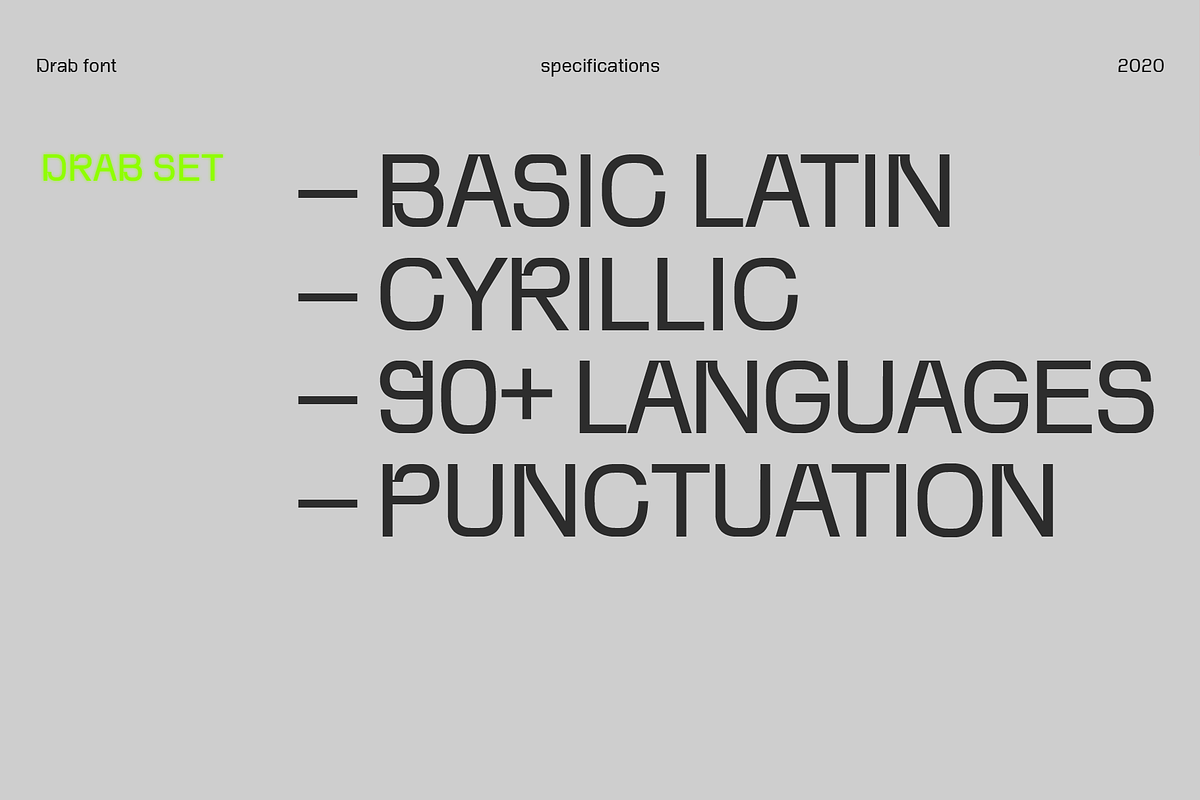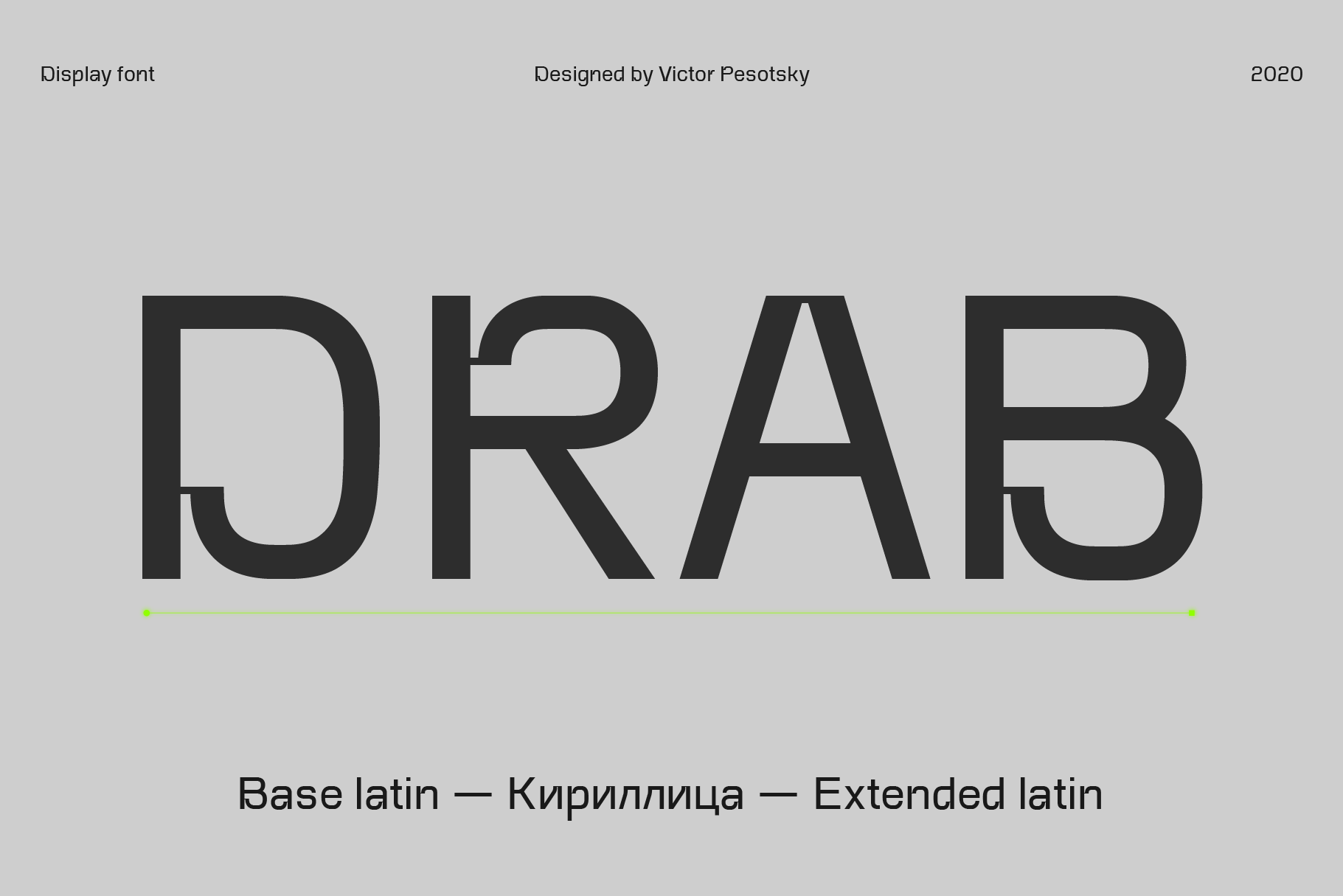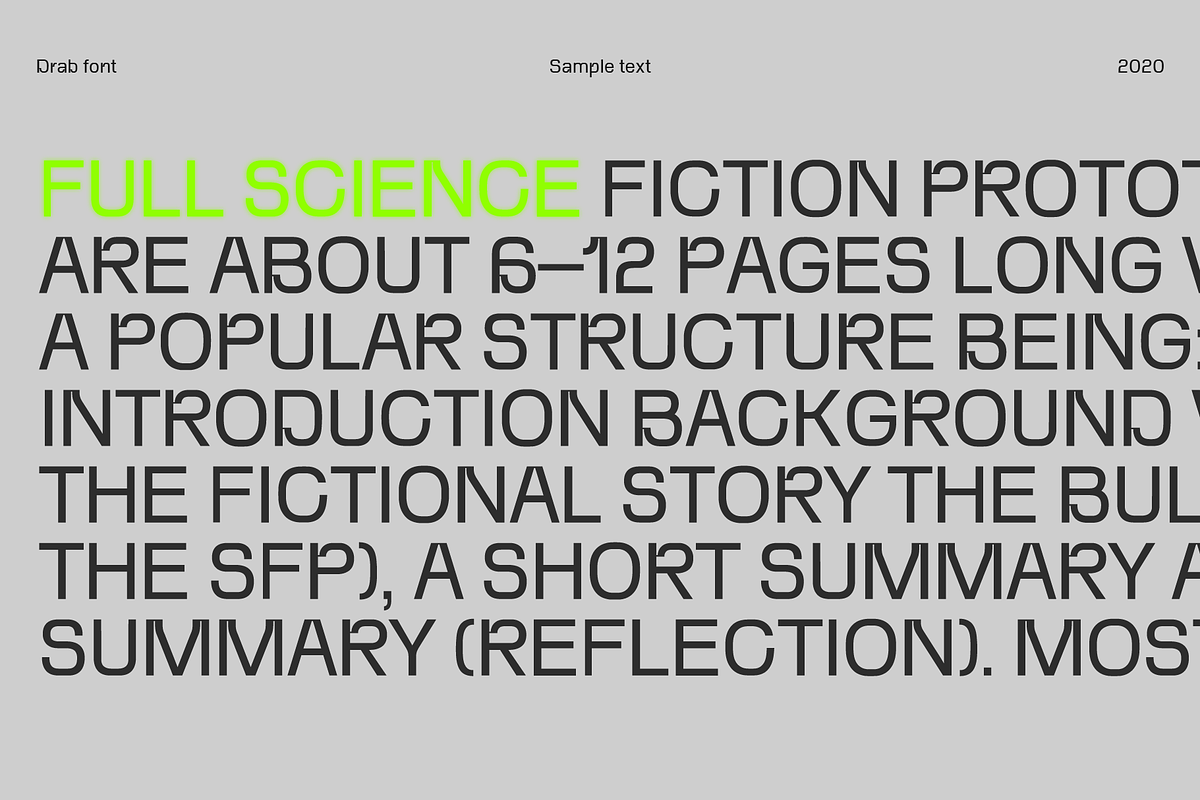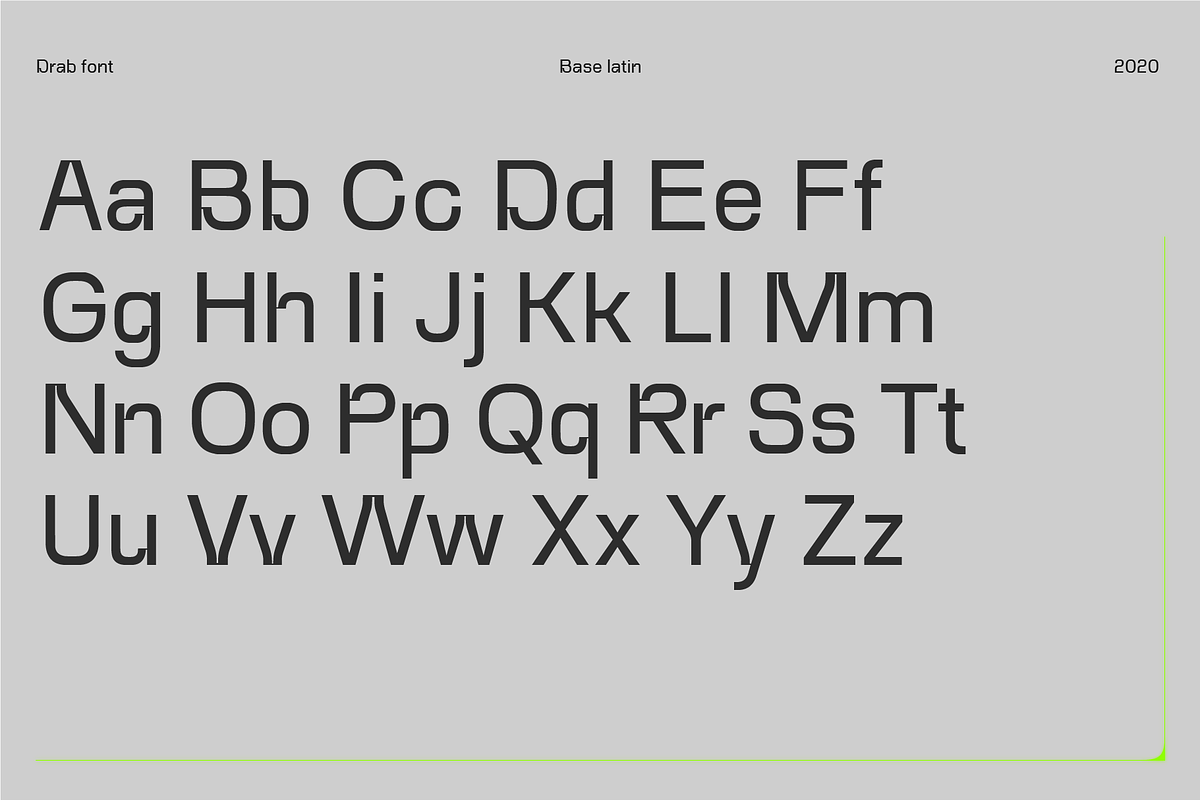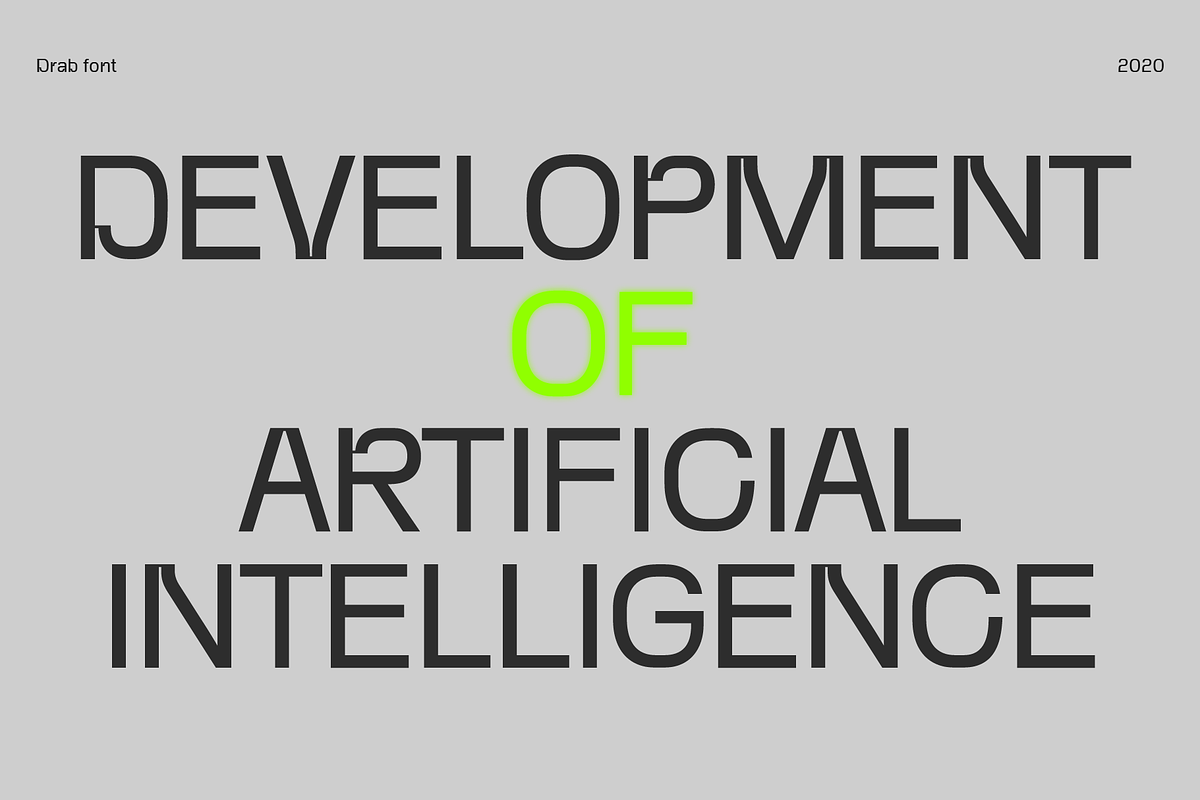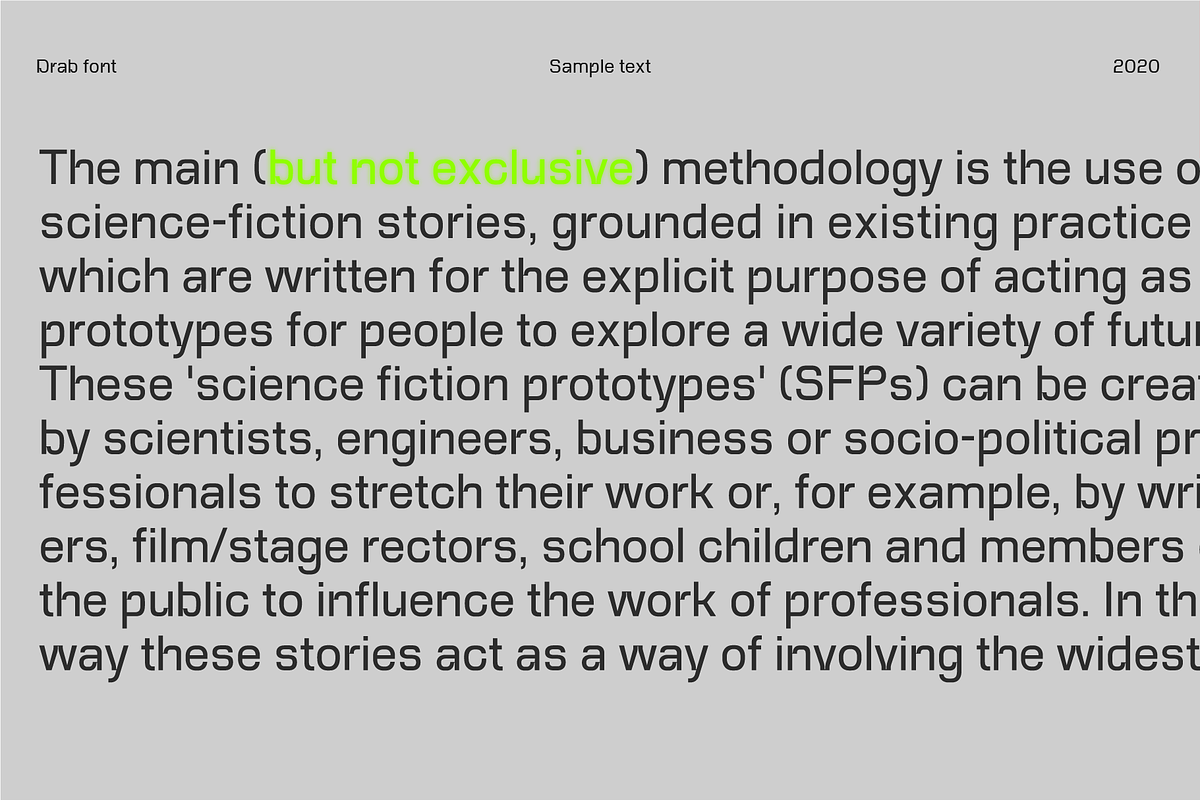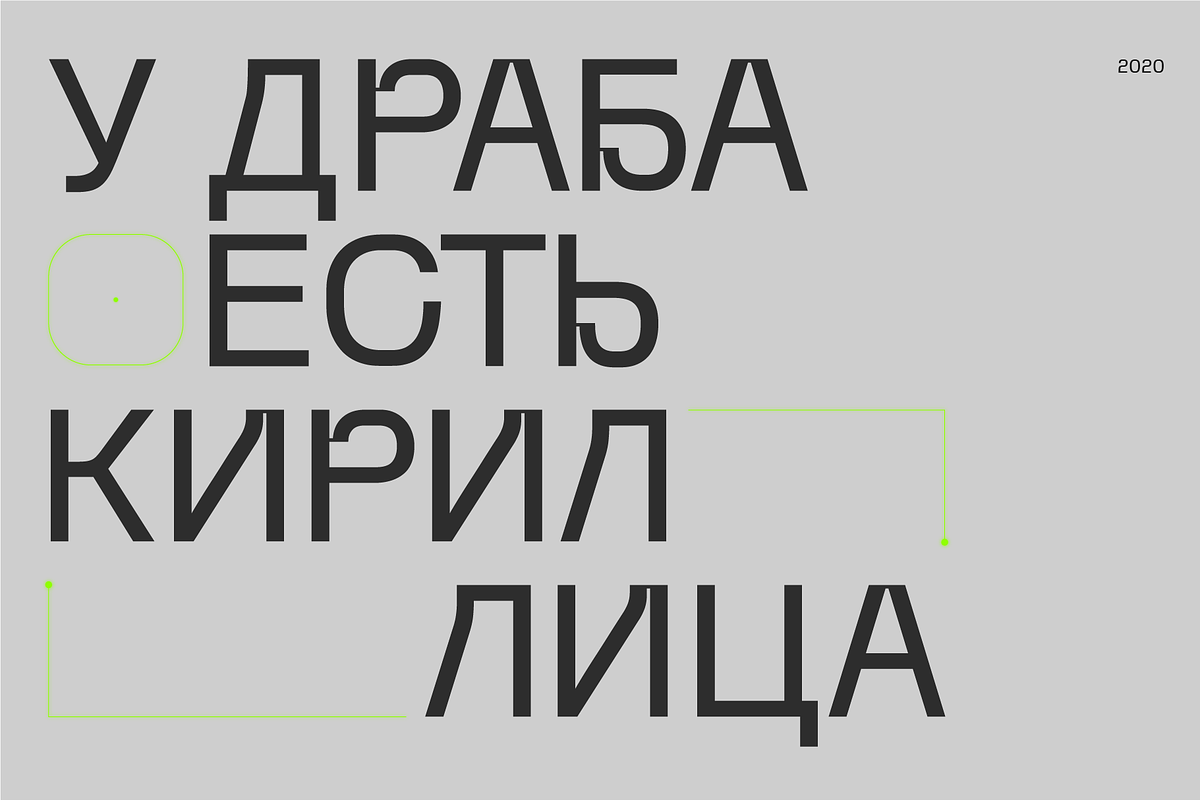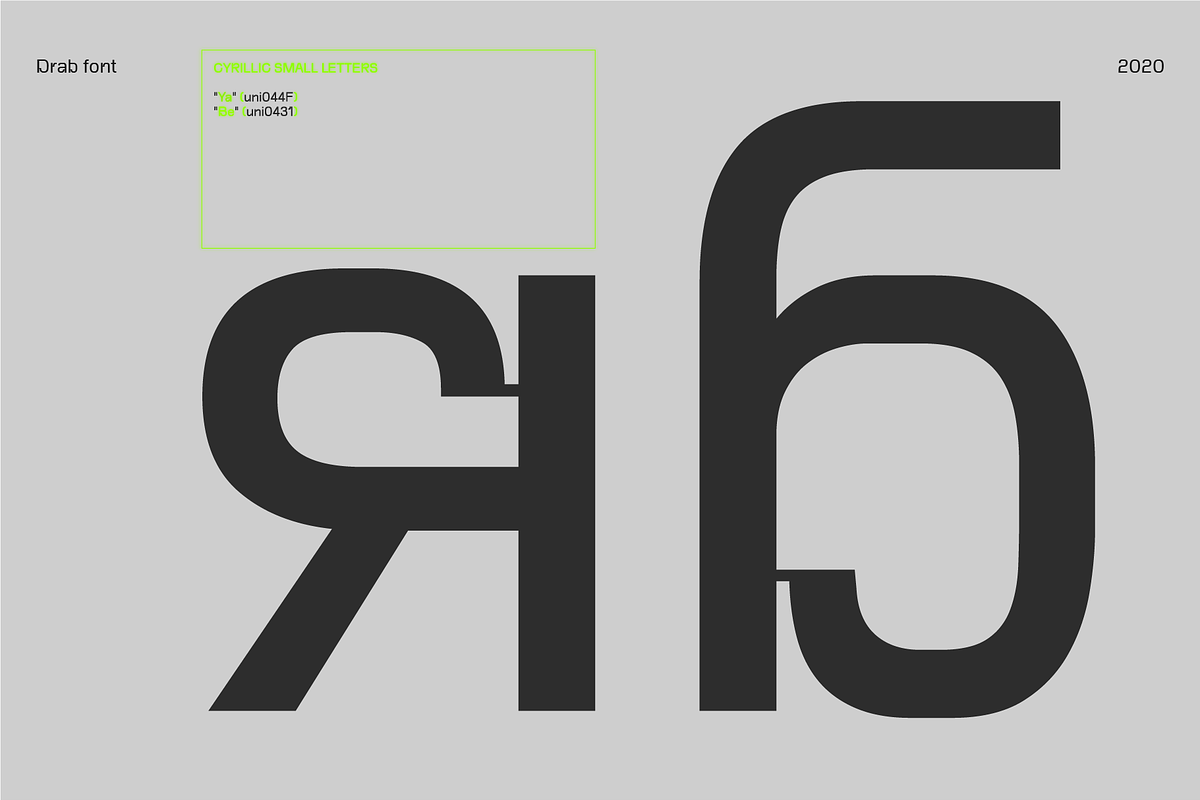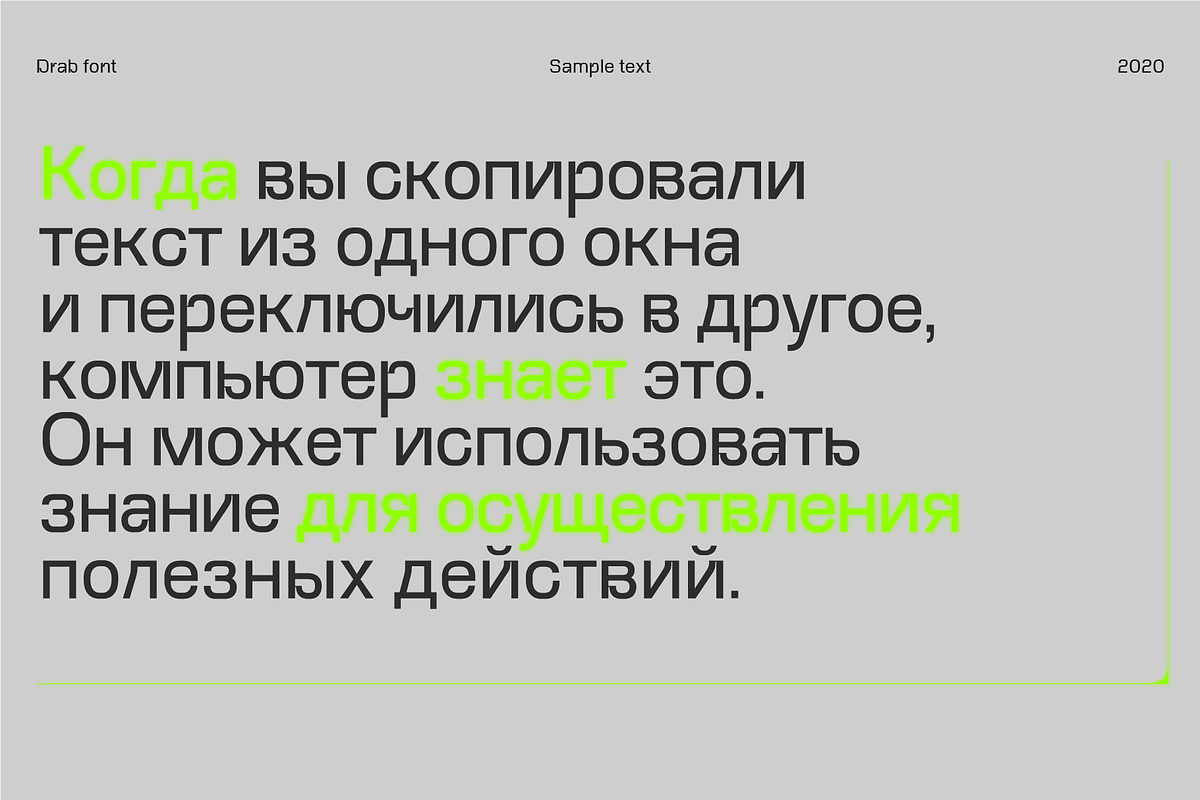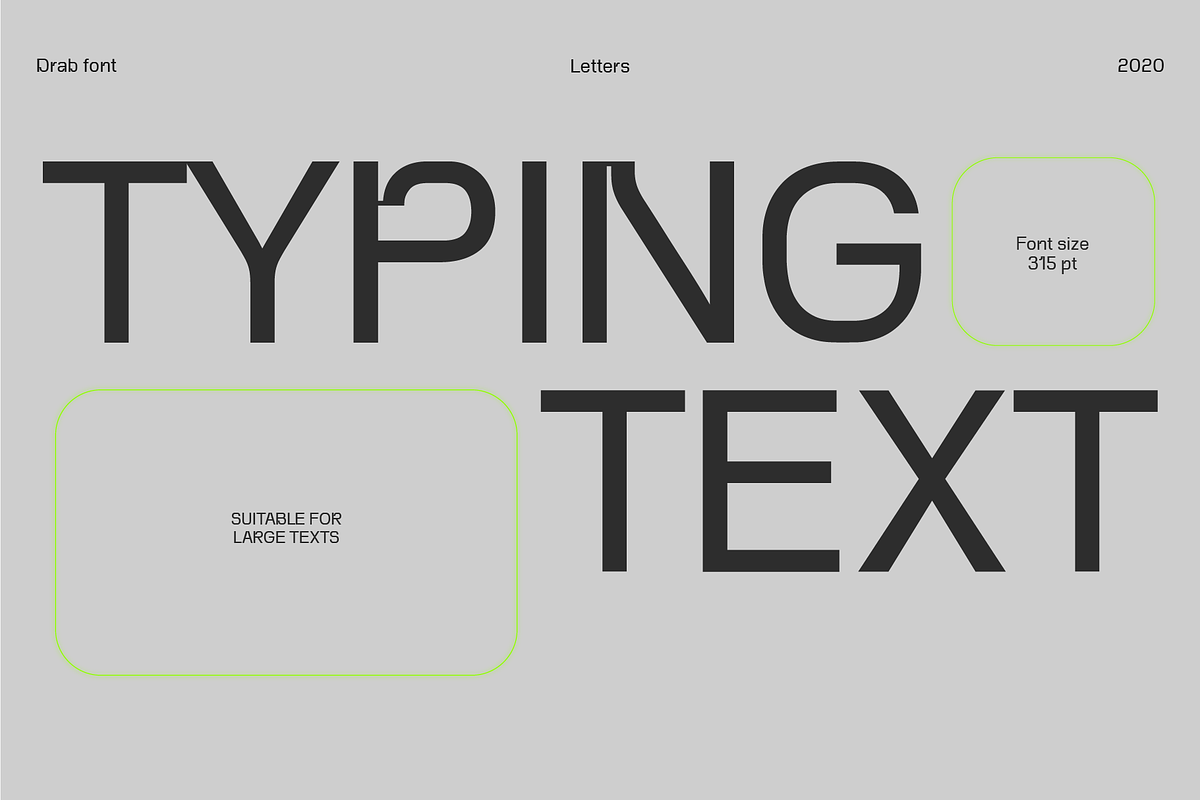
Drab — modern grotesk font
"Drab" is a modern text and header font.It belongs to the grotesque class, that is, fonts without serifs. But it is not a standard neutral grotesque. Drab — is a typeface that doesn't want to be a boring text set. It has accent elements and non-standard letter nodes.
Drab font is great for interface signatures in applications or web sites. In larger sizes, it can be used in posters or corporate identity.
Font supports about 100 languages, including Cyrillic. Punctuation and punctuation marks, numbers and diacritical marks.
♦Drab supports
- Basic Latin
- Extended latin
- Cyrillic
- Diacritics
- Punctuation signs
- Currencies